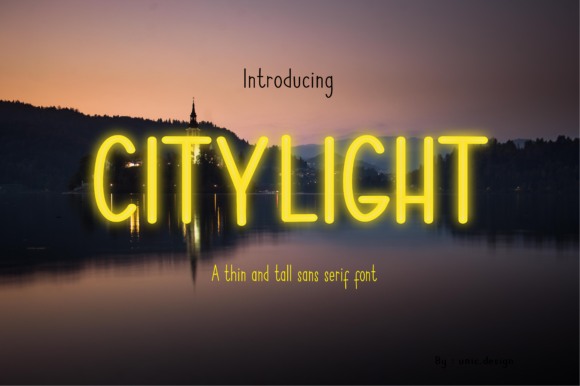
**Introducing Citilight: The Sans Serif Font That Will Illuminate Your Designs**
In a world of cluttered fonts, Citilight stands out as a beacon of clarity and elegance. This modern sans serif font exudes a timeless charm that will elevate your designs to new heights.
Crafted with precision and attention to detail, Citilight's perfectly balanced mix of smooth and sharp lines creates a visually captivating experience. Its clean and legible letterforms ensure effortless readability, making it perfect for everything from headlines to body copy.
Whether you're designing a sleek website, a captivating brochure, or eye-catching social media graphics, Citilight will add an instant touch of sophistication and professionalism. Its versatile nature makes it suitable for a wide range of design projects, from classic to contemporary.
Indulge in Citilight's allure and witness the transformative power of a font that combines timeless elegance with modern functionality. It's not just a font; it's an investment in your designs, a guarantee of style and distinction.
**Embrace the Citilight Difference**
- Smooth and sharp lines for a visually striking balance
- Perfectly legible letterforms for effortless readability
- Versatile design suitable for a wide range of projects
- Timeless elegance that will never go out of style
- Crafted with precision and attention to detail